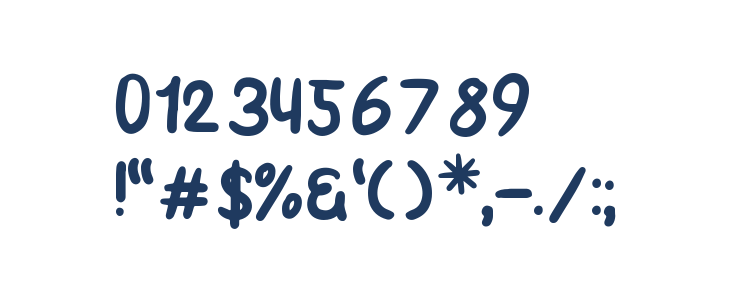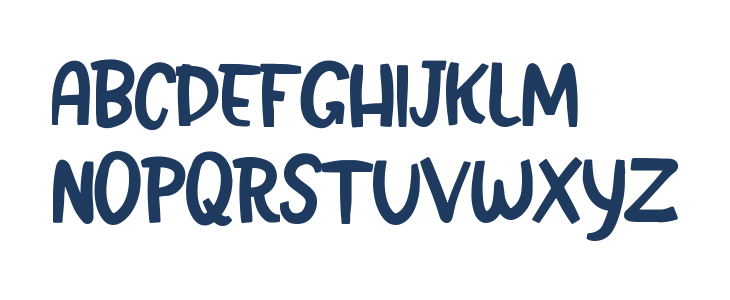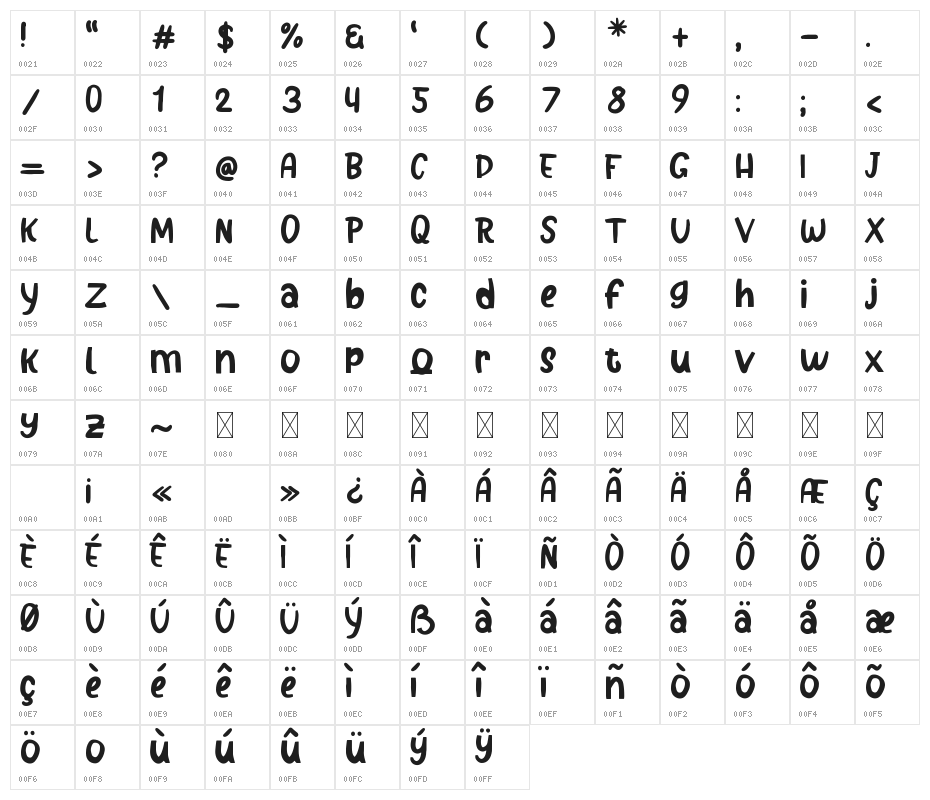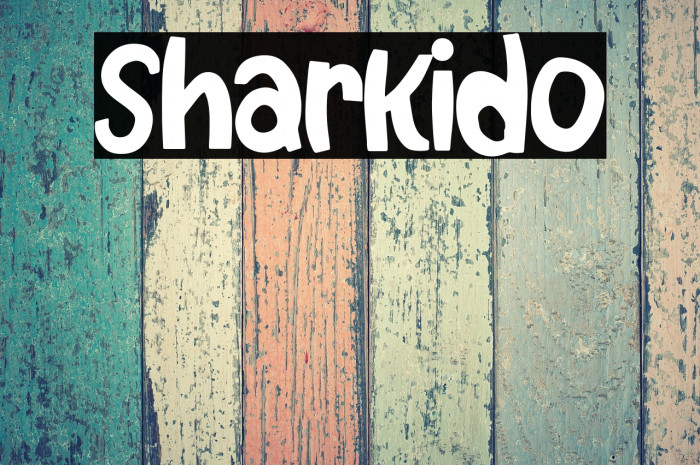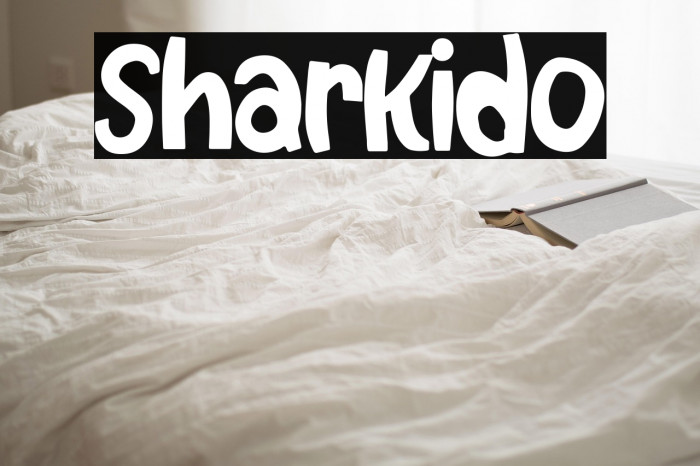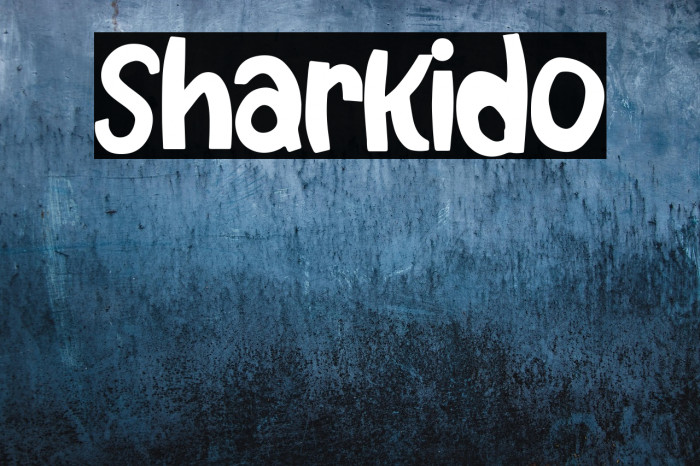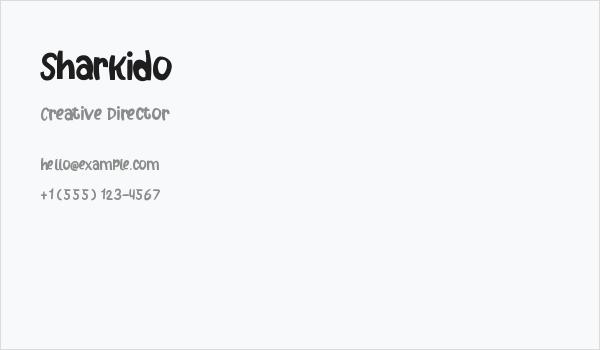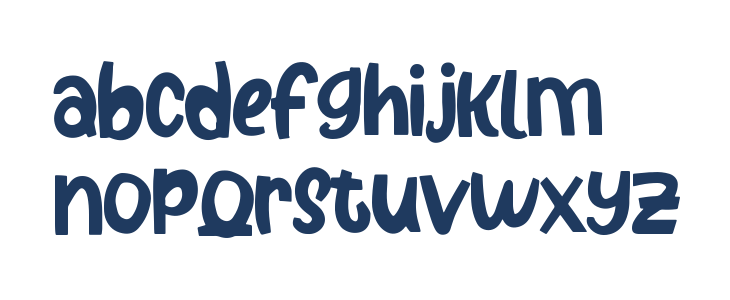
Sharkido Font
Sharkido Description
A playful, bold, and rounded handwritten-style font with irregular strokes and a casual, friendly appearance. The characters have a slightly uneven baseline and variable stroke widths, giving a lively and informal feel.
| Overall Style | Playful, Casual |
| Proposed Projects | Children's books, informal invitations, posters, branding for playful or creative businesses, social media graphics. |